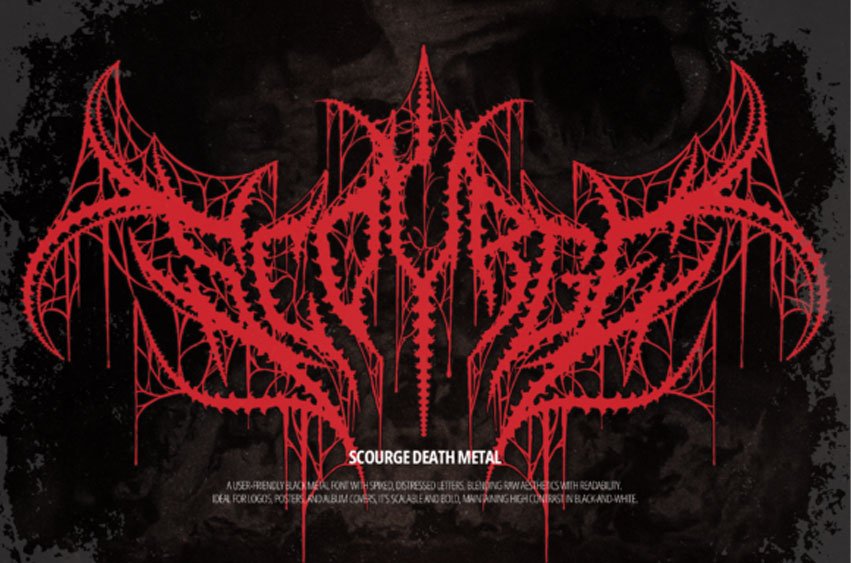
Scourge Font is a bold and edgy font often used in Death Metal designs. It features sharp, jagged letters that create a dark and aggressive look.
The style captures the intensity of the music, making it perfect for album covers, band logos, and merchandise. Its unique design conveys a sense of power and rebellion, fitting for the heavy themes of the genre.